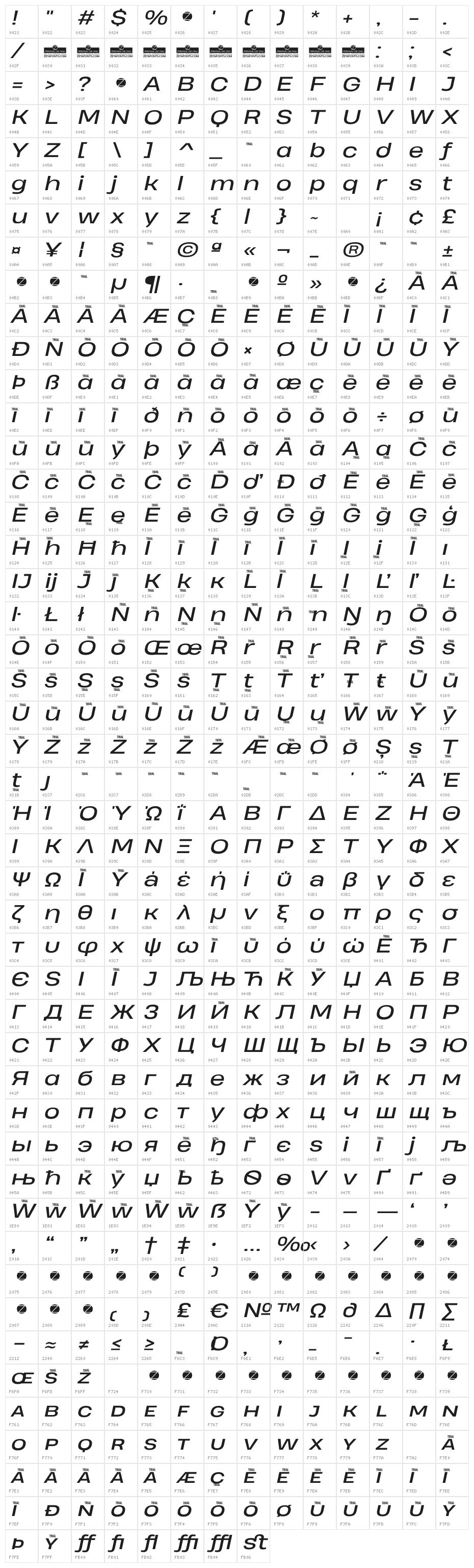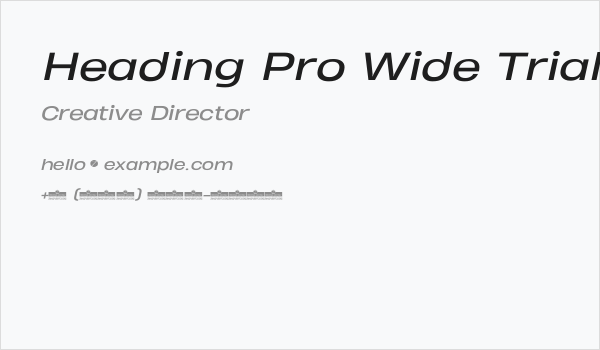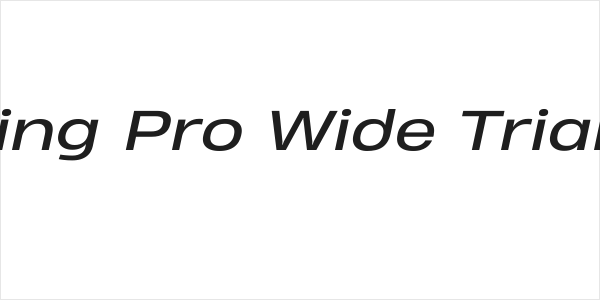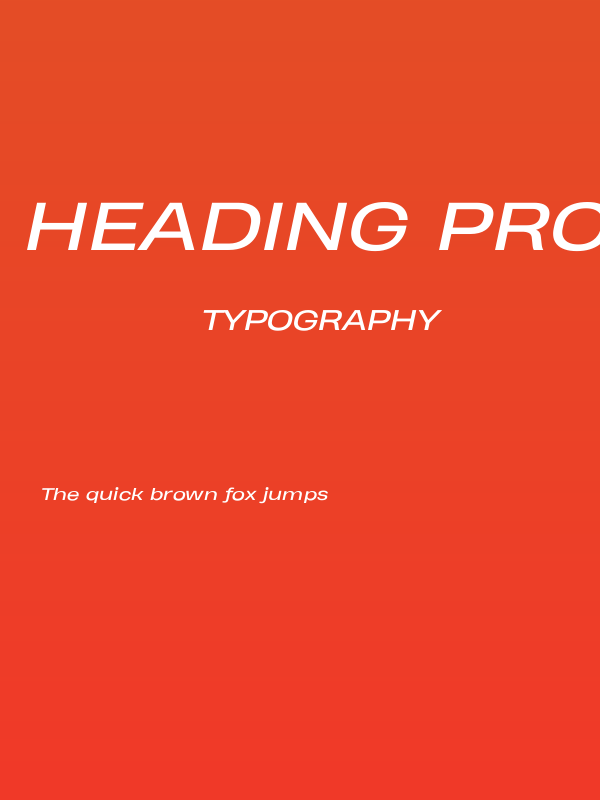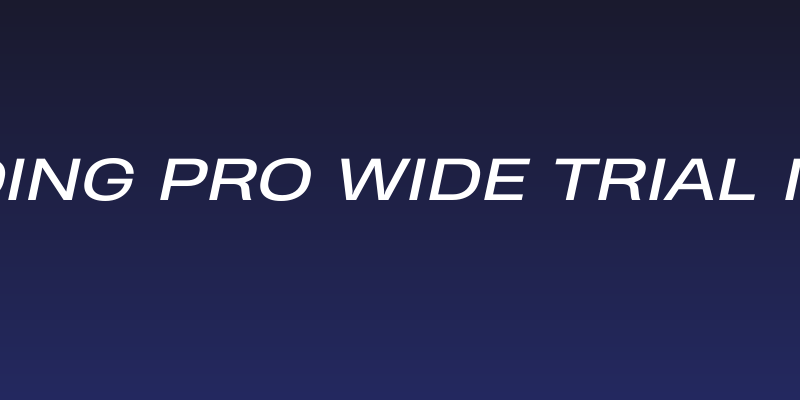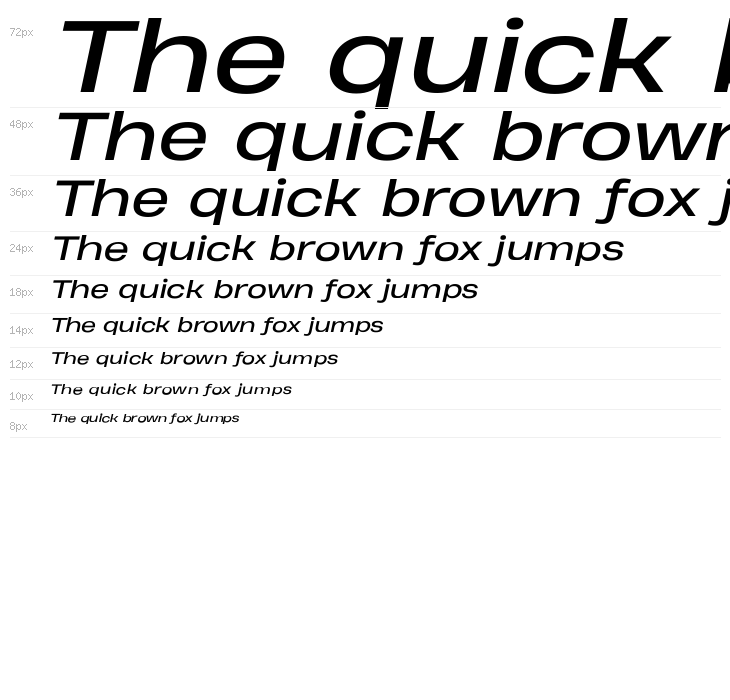
Heading Pro Wide Trial Italic Font
Heading Pro Wide Trial Italic Description
This font features a modern and sleek design with a distinctly italicized style, giving it a dynamic and forward-leaning appearance. The characters are wide, providing a sense of openness and readability, while maintaining a consistent stroke width that suggests a medium contrast. The uppercase and lowercase letters are well-proportioned, with a slight slant that enhances the italic effect. The numerals and special characters are designed to match the overall aesthetic, ensuring uniformity across all text elements. This font is suitable for projects that require a contemporary and professional look.
Use CaseHeadlines, Branding, Digital Interfaces
Proposed ProjectsIdeal for headlines, branding, advertising materials, and digital interfaces where a modern and professional appearance is desired.